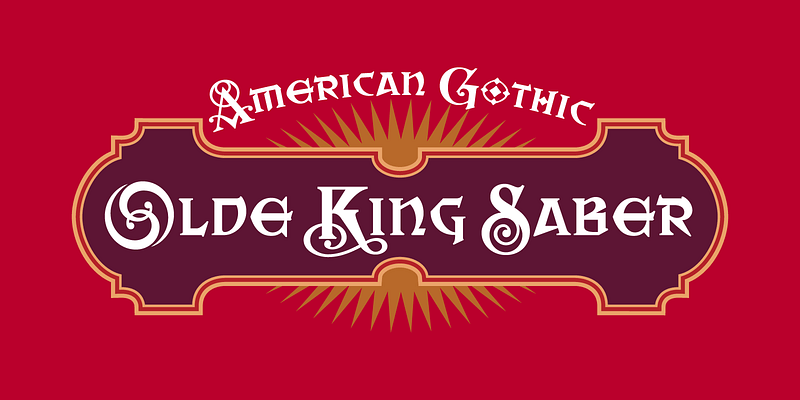
Saber began with a “lowercase,” a series of blackletter, uncial and celtic forms that appeared to Leslie Cabarga in a designer’s dream. From these illusory nocturnal images, a wide awake Cabarga dreamed up extravagant orgies of capitals, highly original forms hinting at past Victorian frenzies, establishing beyond any shadow of doubt that “nothing exceeds like excess.”
Saber may be set entirely in lowercase, or with initial caps.
Zavier Cabarga has been drawing pictures and pictures of letters all his life. “Drawing requires an inherent feel for anatomy and proportion. Lettering does also, as I believe that our ancient letterforms are based upon human proportions,” Zavier said. “Inspired at first by comic book lettering, I began copying logos and display type out of magazines. At 15, I stripped up film negatives to form a crude but serviceable typositor font.”
Working under the name Handy Lettering Co., for many years Zavier designed hand lettering for advertising clients while working full-time as an illustrator. “Drawing illustrations has always seemed difficult—lettering is easy and fun,” Zavier said. “Working for the past 25 years on the Macintosh has enabled me to create computer fonts, which in many ways is the most satisfying thing I do. Typing a letter or manuscript with a font I’ve created makes me feel like God.”